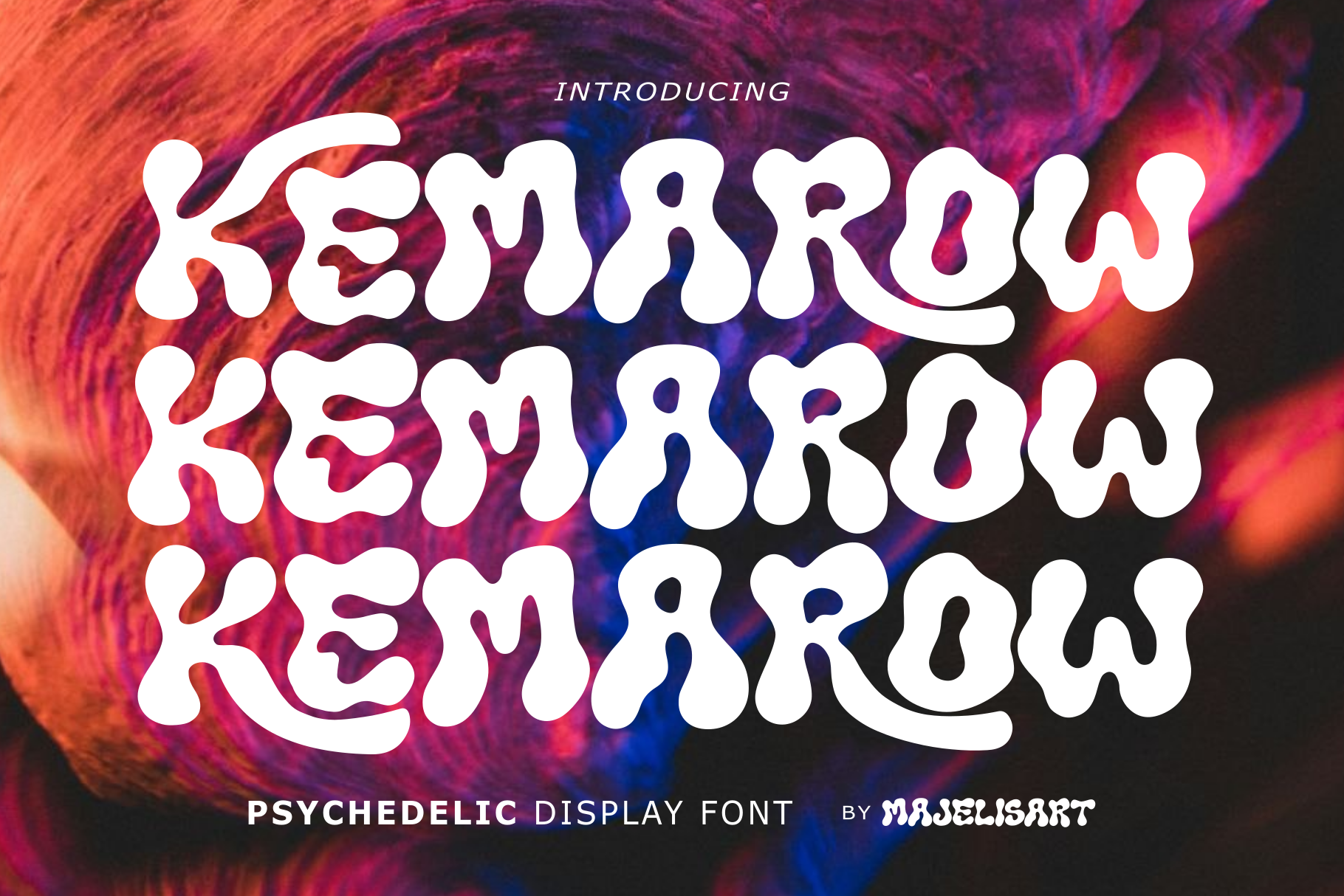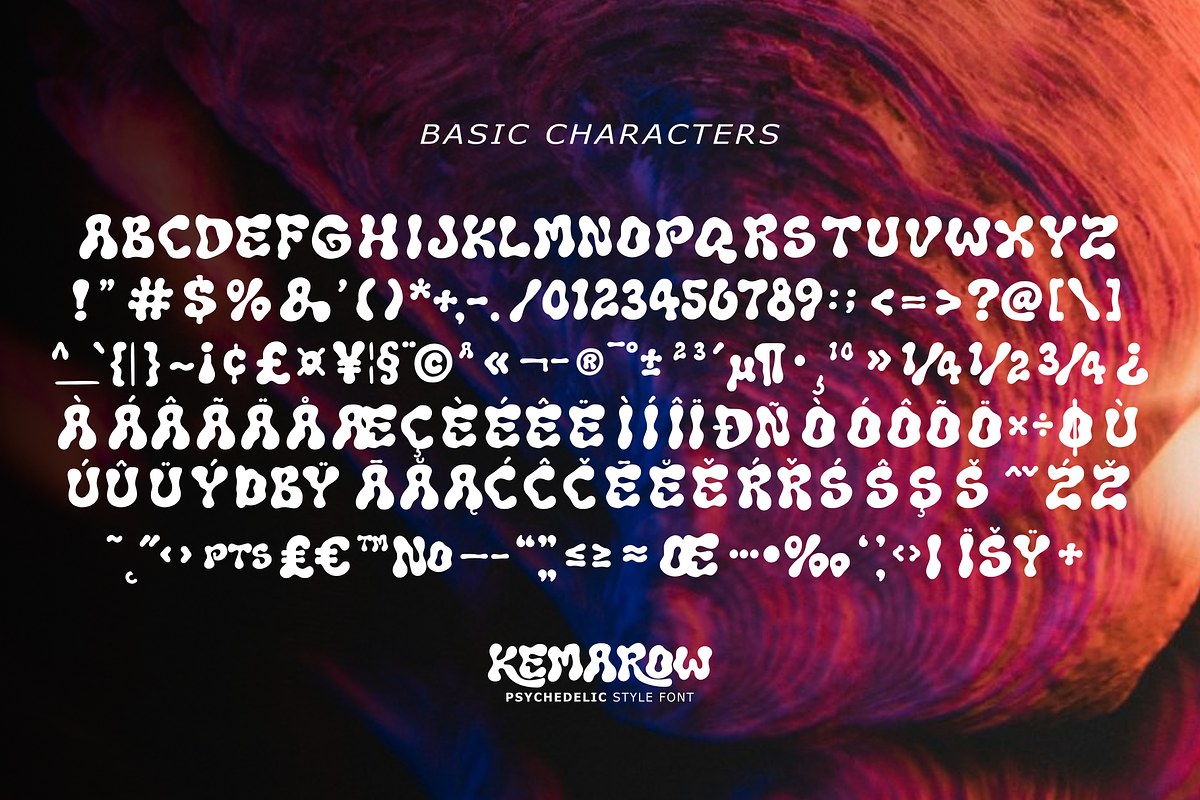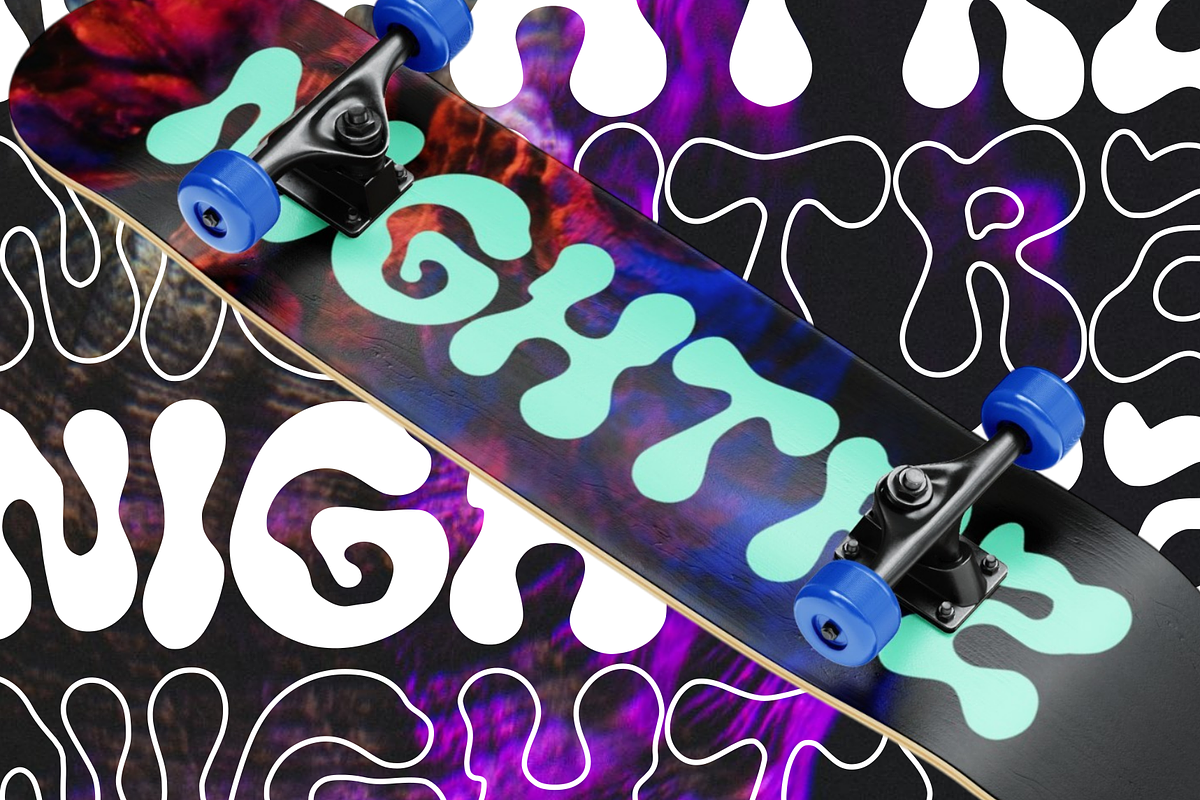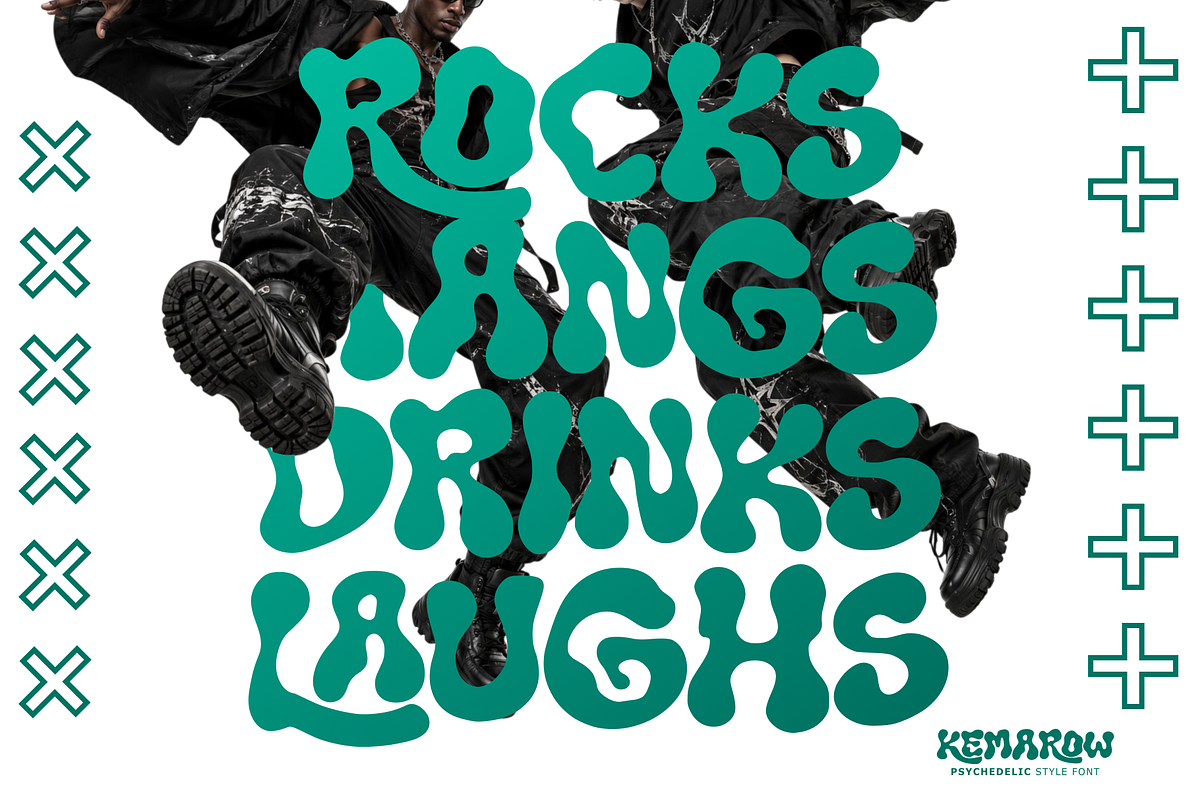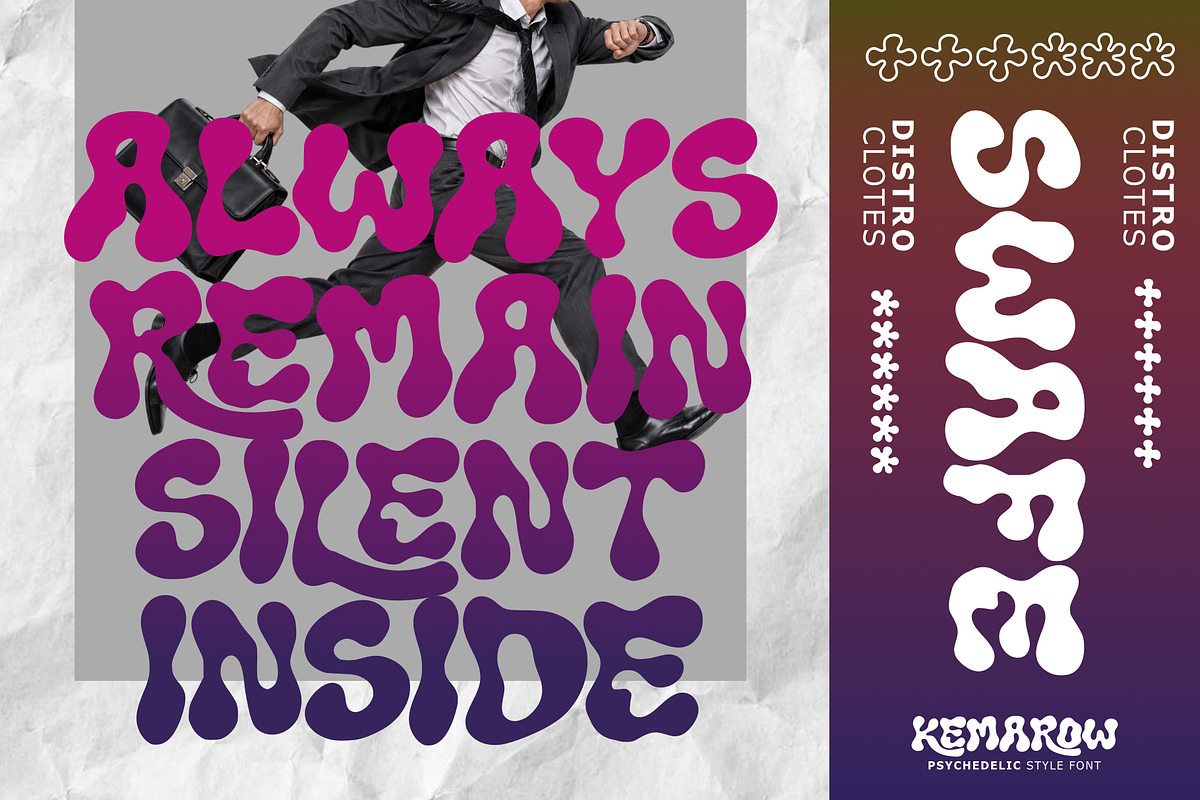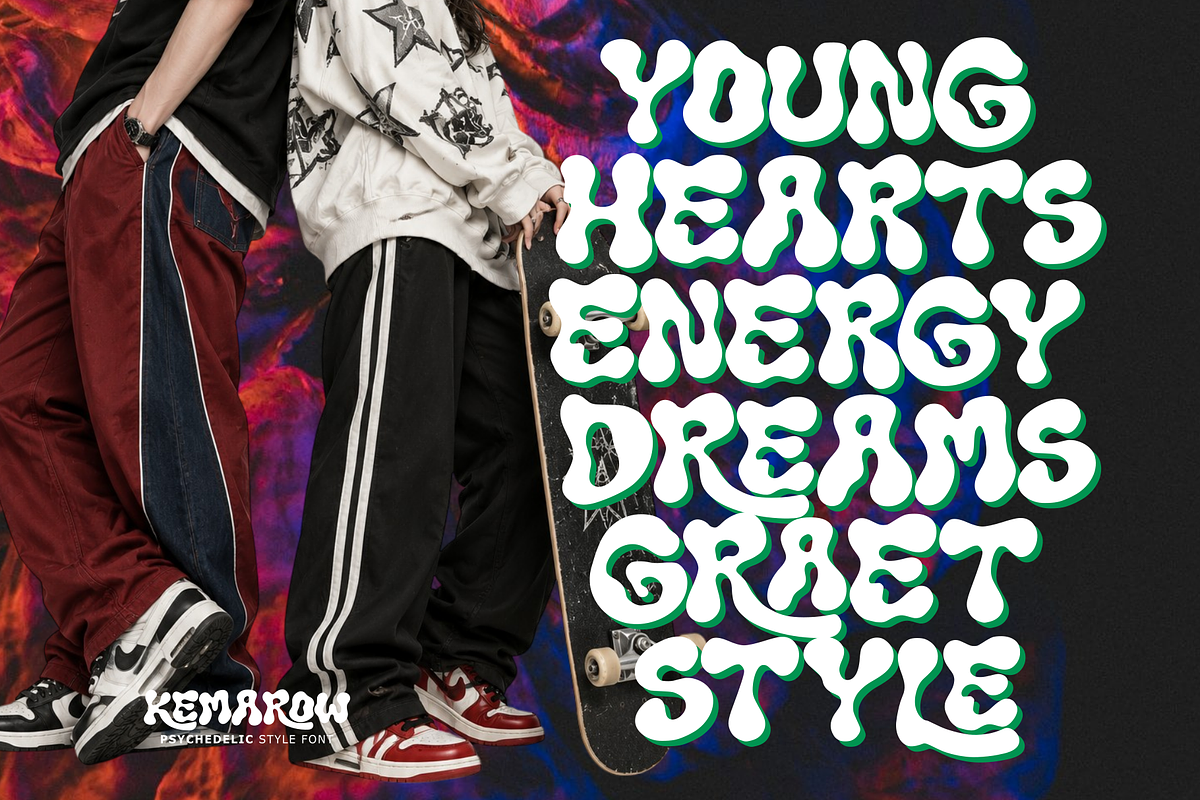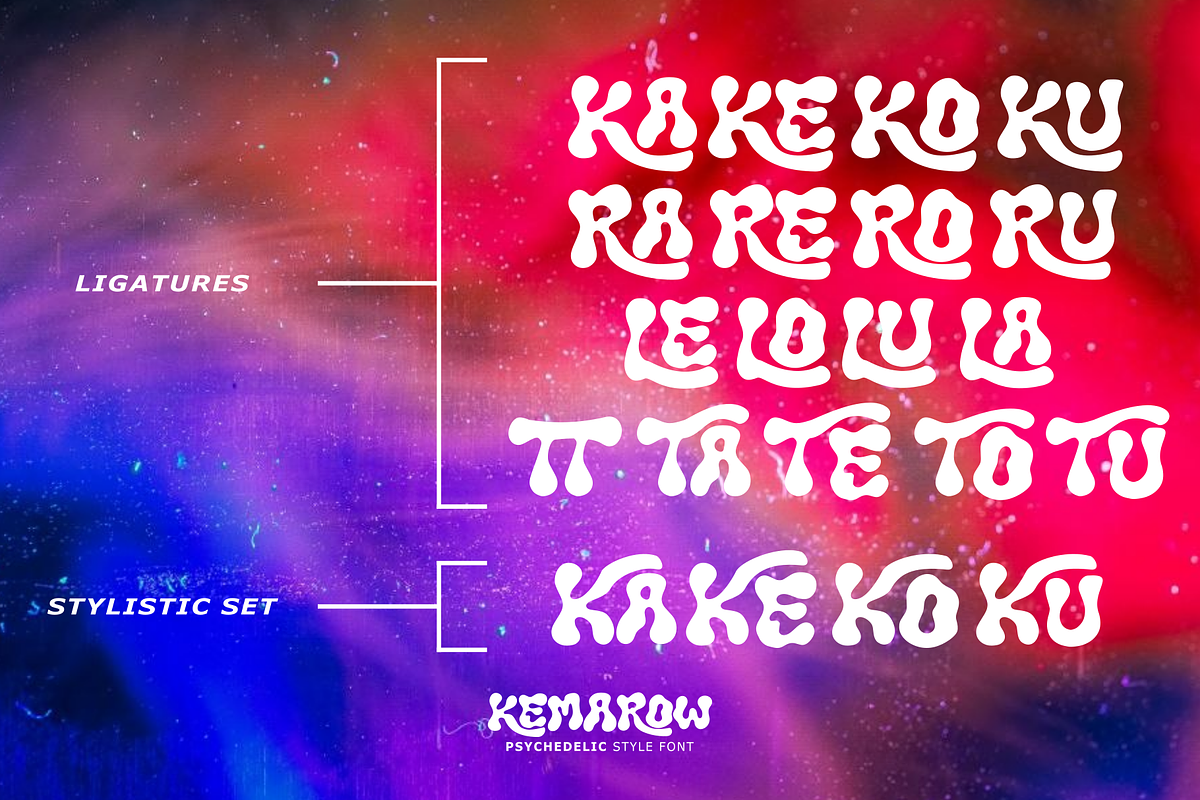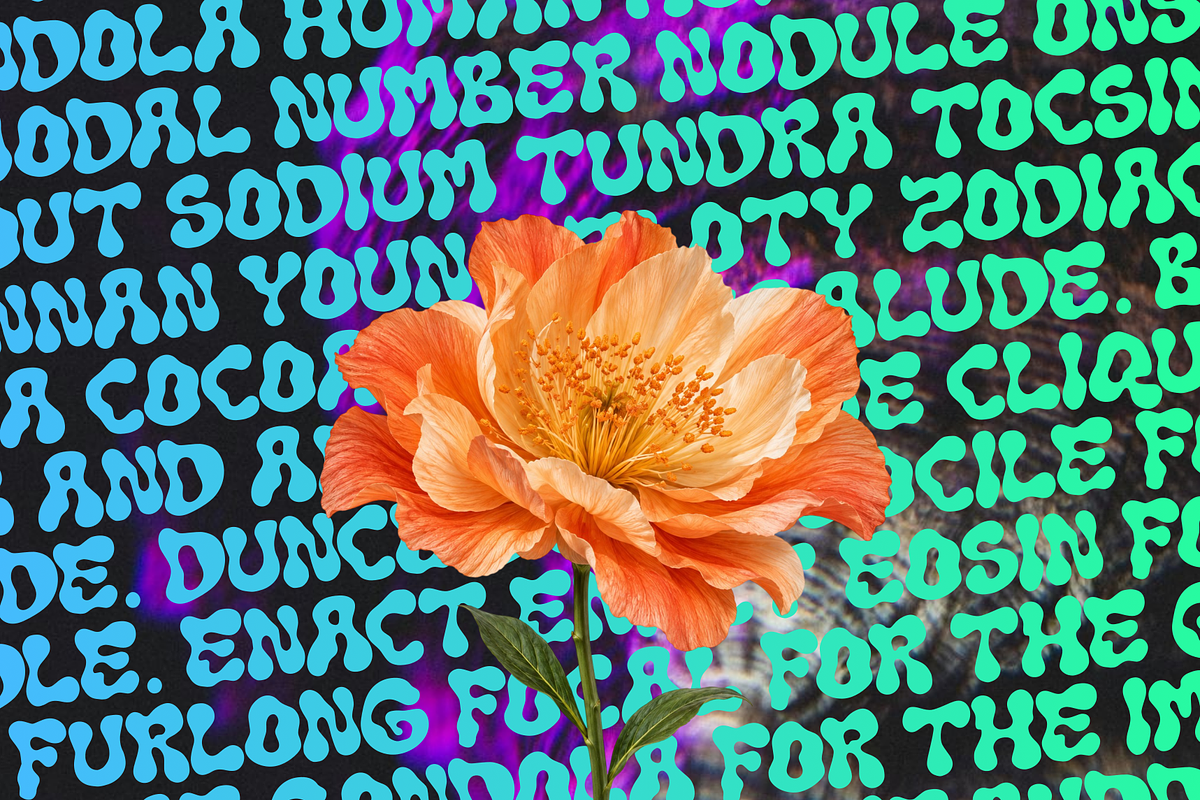
Kemarow - Psychedelic font
Kemarow — Psychedelic Display Font
Introducing Kemarow, a bold and playful Psychedelic Display Typeface inspired by fluid shapes, groovy lettering, and vibrant retro aesthetics.
Featuring soft, wavy curves, chunky forms, irregular proportions, and organic letterforms, Kemarow creates a fun and energetic appearance with a distinctive psychedelic personality. Its unique shapes are designed to make headlines and short words instantly stand out.
Psychedelic & retro designs 60s & 70s inspired artwork Posters & flyers Music & album artwork Festival graphics T-shirts & apparel Stickers & merchandise Logos & branding Packaging design Social media graphics Headlines & titles Event & party designs Creative advertising Fun & experimental projects
Kemarow includes multilingual support for supported Latin-based characters, making it suitable for creative projects aimed at an international audience.
Kemarow — Groovy shapes, bold energy, endless creativity.